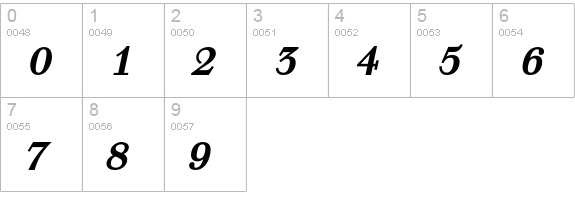
Seriar-BoldItalic Font Details
Seriar-BoldItalic is a stunning font that exudes elegance and sophistication. Its unique blend of boldness and italic styling adds a touch of modernity to any design project. With its sleek and stylish curves, this font captures attention and leaves a lasting impression. The Seriar-BoldItalic font is perfect for various creative endeavors, including logos, branding, invitations, headlines, and more. Its versatility allows it to seamlessly adapt to different design styles, whether you're going for a contemporary or classic look. One of the best things about Seriar-BoldItalic is that it is freely available to download at FontsMarket.com. This means that you can easily access and use this incredible font for all your design needs without any cost. The convenience of being able to obtain such a high-quality font for free is truly a game-changer. Downloading and installing Seriar-BoldItalic is a breeze, making it accessible to both experienced designers and beginners alike. Once you have this font in your collection, you'll find yourself reaching for it time and time again, as it effortlessly elevates any design project to new heights. So, why wait? Take advantage of this fantastic opportunity to enhance your designs with the Seriar-BoldItalic font. Visit FontsMarket.com today and download this extraordinary font for free. Unleash your creativity and let Seriar-BoldItalic transform your work into a masterpiece.